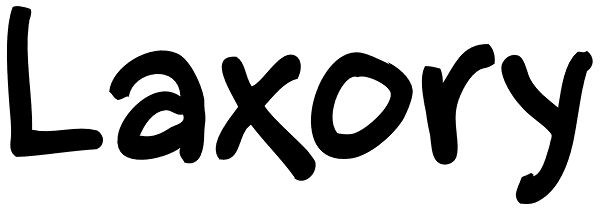
Laxory
My handwriting with a speedmarker turned into a font - well, not really, to be honest! Personally I did do all the writing of letters, but in order for the letters to fit perfectly together, I manipulated them - just a tad! But the result is a hasty...